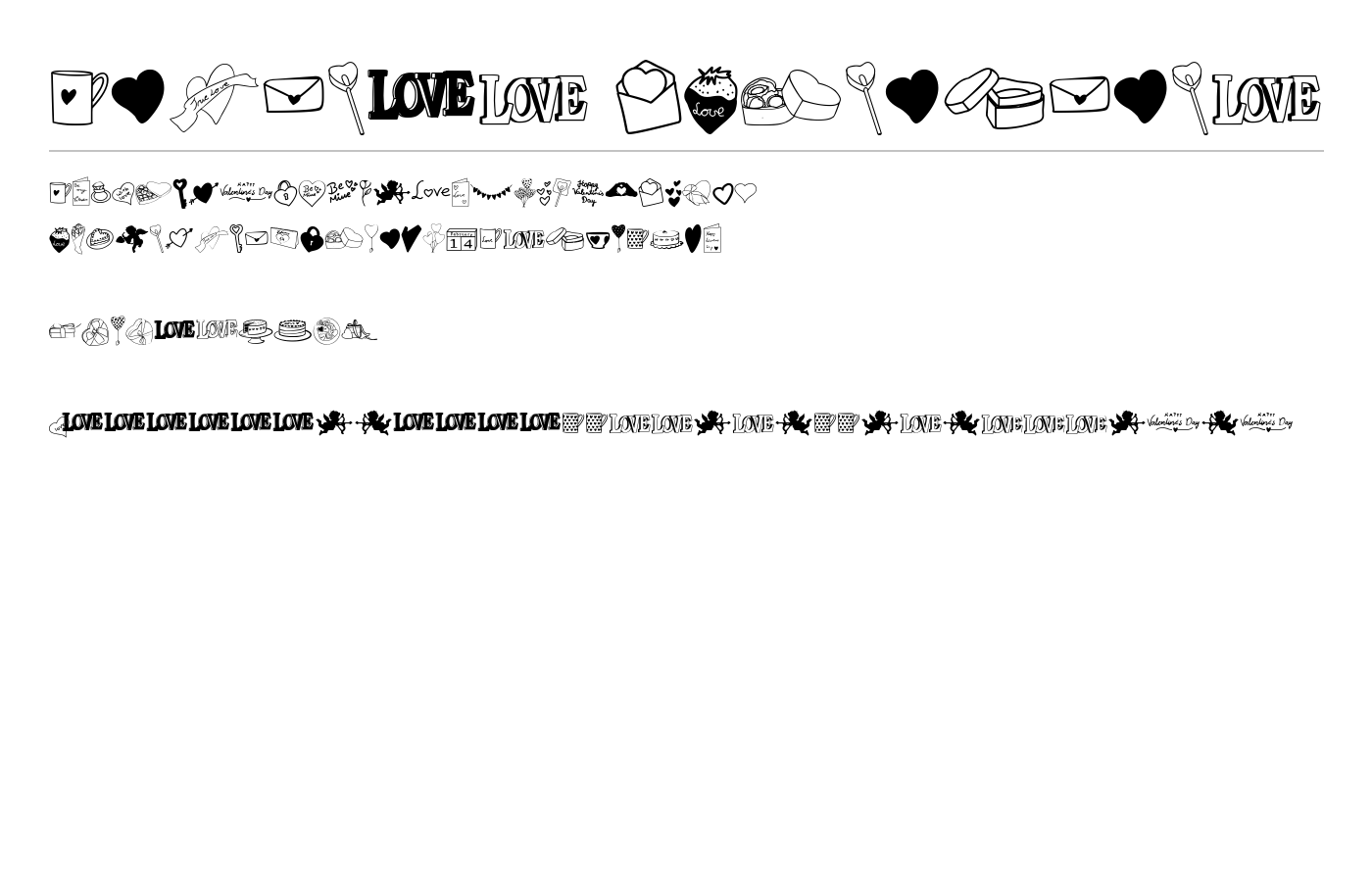
Angie's Valentines Font is a playful and decorative dingbat-style typeface filled with charming Valentine-themed icons like hearts, love letters, cupcakes, and cupids. Its whimsical black-and-white illustrations evoke a fun, romantic mood, making it perfect for festive greeting cards, holiday invitations, and themed packaging. This font adds a heartfelt, stylish touch to any design needing a warm and affectionate vibe.
Angie's Valentines Font
About Angie's Valentines Font